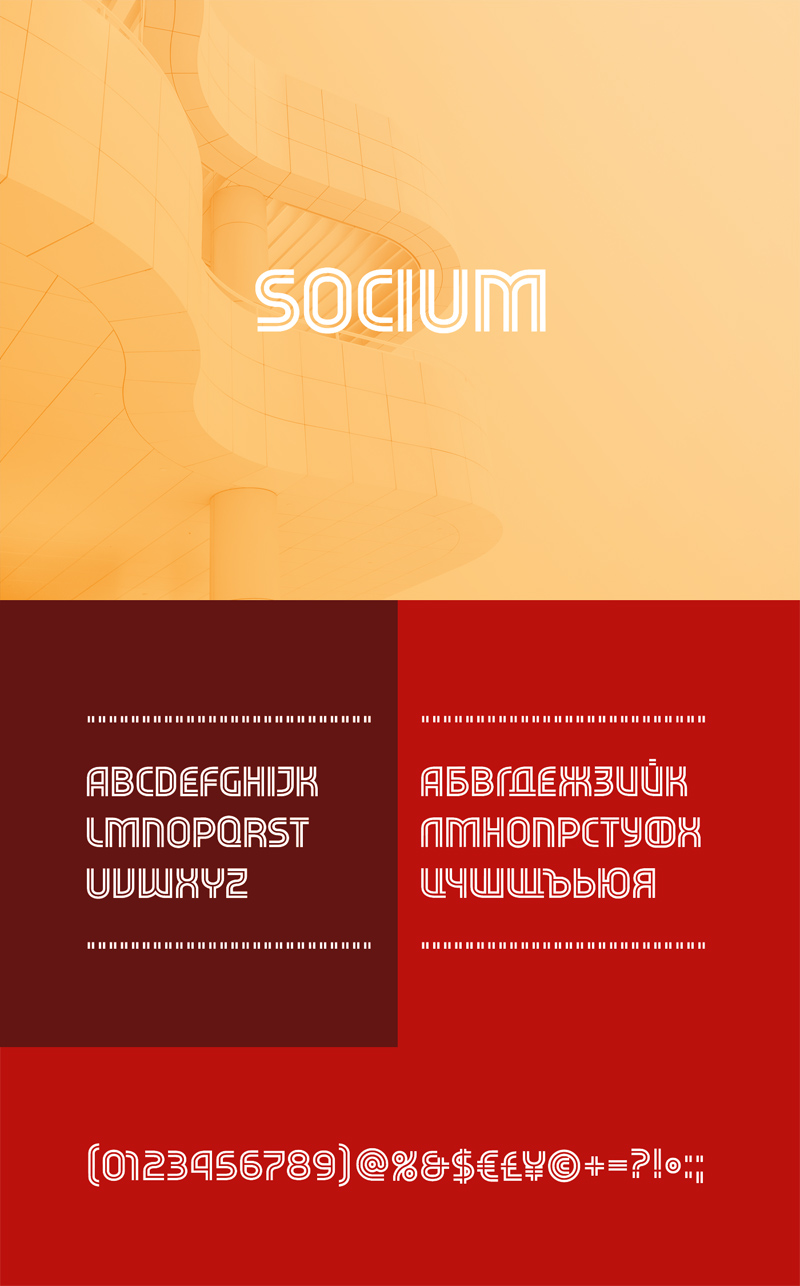
Socium Free Geometric Typeface
Treat yourself to Socium, a font offered by designer Svetlin Balezdrov. It integrates geometric and cyrillic styles.
The font is a fresh look at the aesthetics of Bulgarian socialism that interprets in a memorable way the achievements of the Bauhaus. SOCIUM follows the tradition of Bulgarian typographic design that cleverly integrates the peculiarities of the Bulgarian Cyrillic and principles of geometric construction.